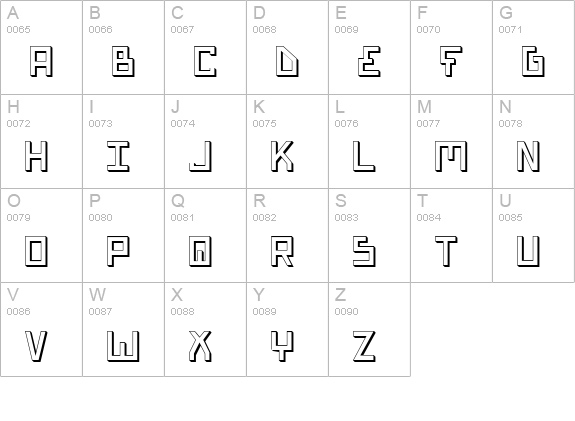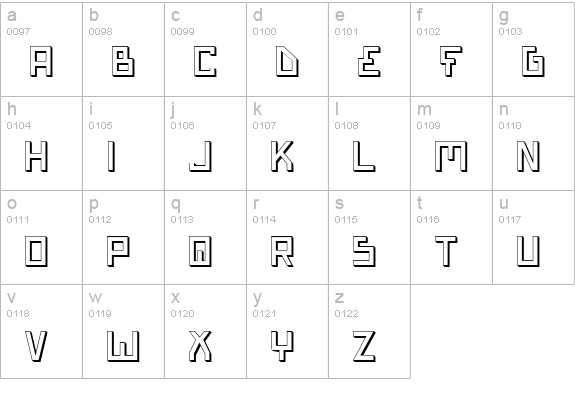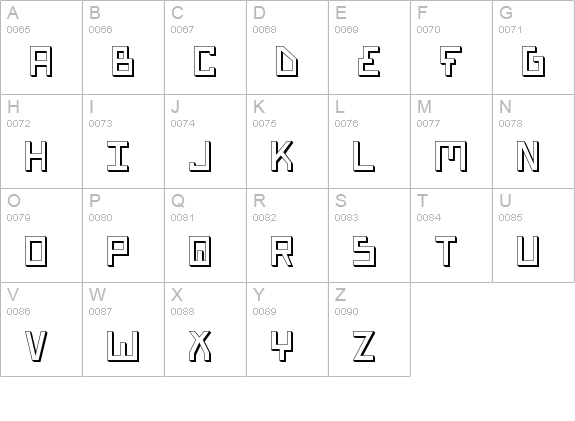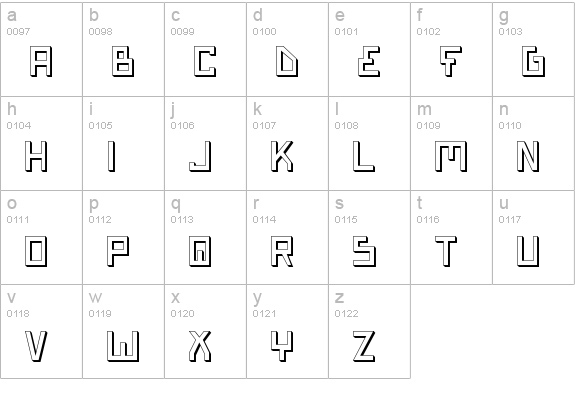
Bionic Type Shadow Font Details
Bionic Type Shadow font is a modern and futuristic typeface that combines sleek lines with a bold and edgy aesthetic. Its sharp angles and unique design make it perfect for adding a contemporary touch to any project. The Bionic Type Shadow font exudes a sense of power and sophistication, making it ideal for branding, logos, posters, and more. Best of all, this font is available for free download at FontsMarket.com. Take advantage of this opportunity to enhance your designs with the striking and versatile Bionic Type Shadow font. Whether you're a designer looking to make a statement or a creative enthusiast exploring new typographic styles, this font is sure to impress with its dynamic and captivating presence. Upgrade your projects today with the Bionic Type Shadow font and let your creativity shine.